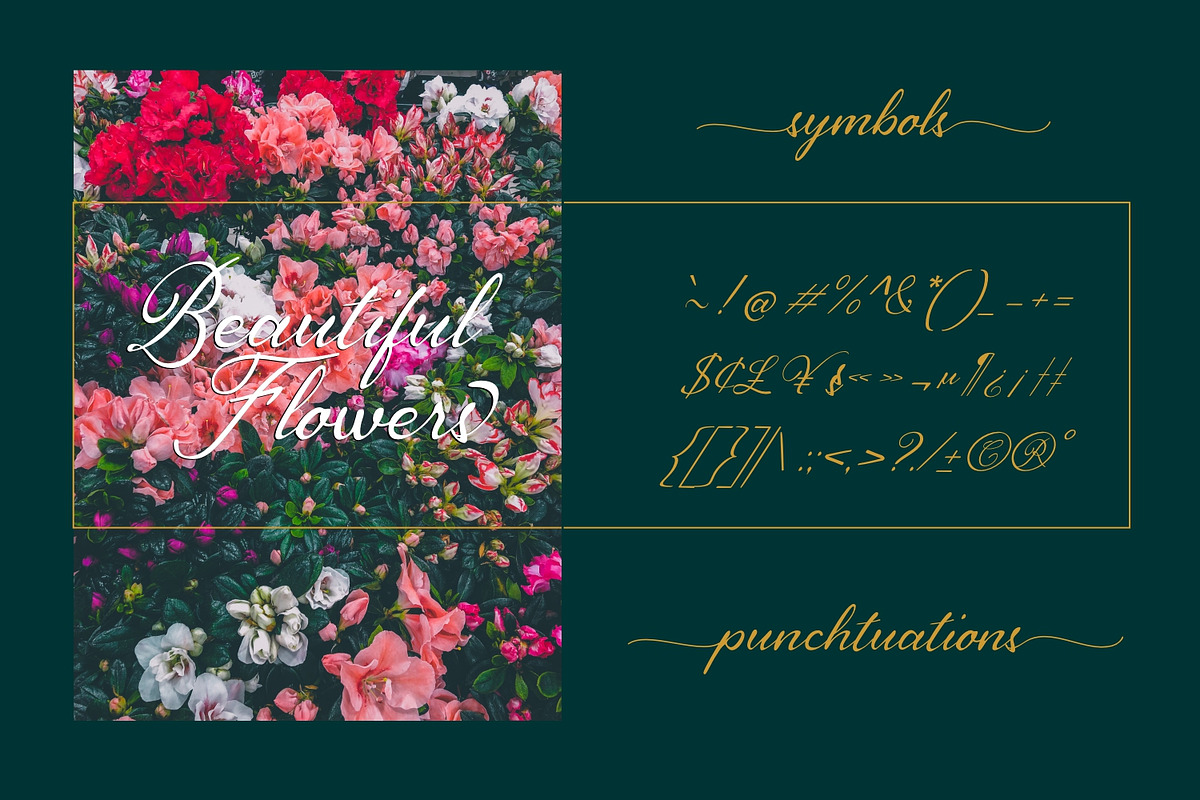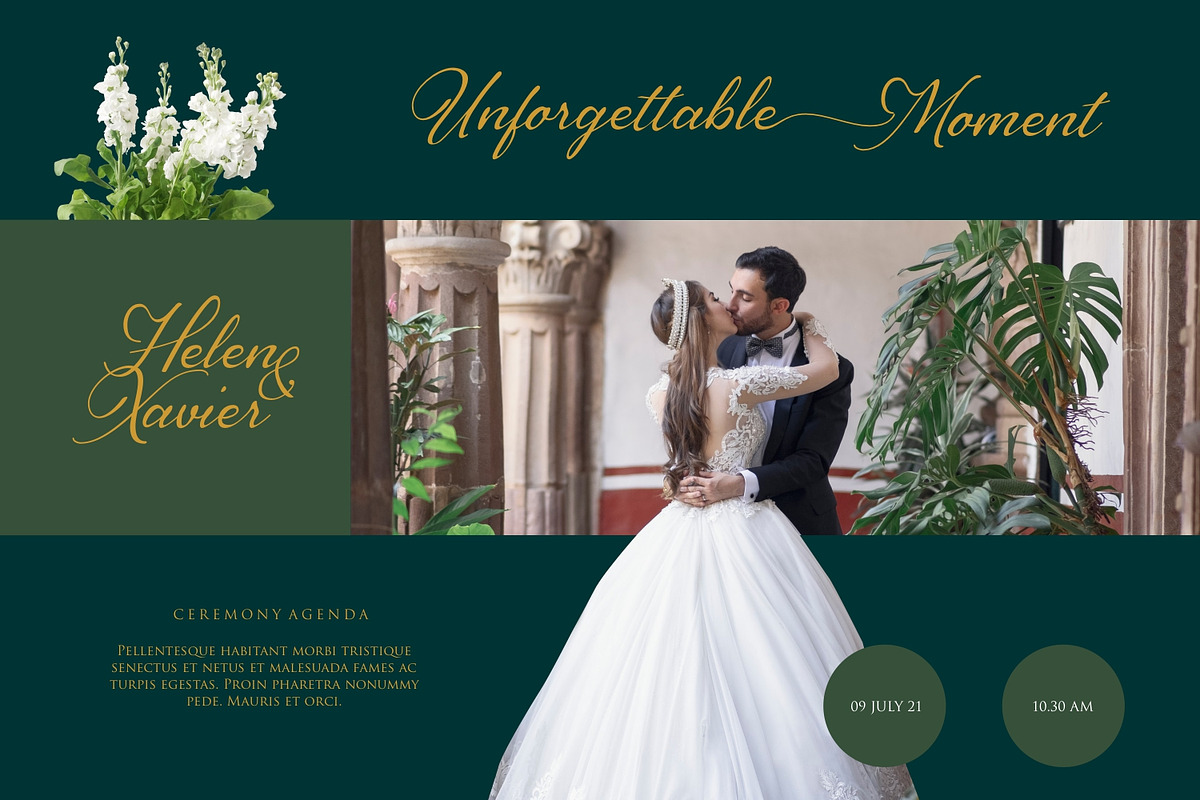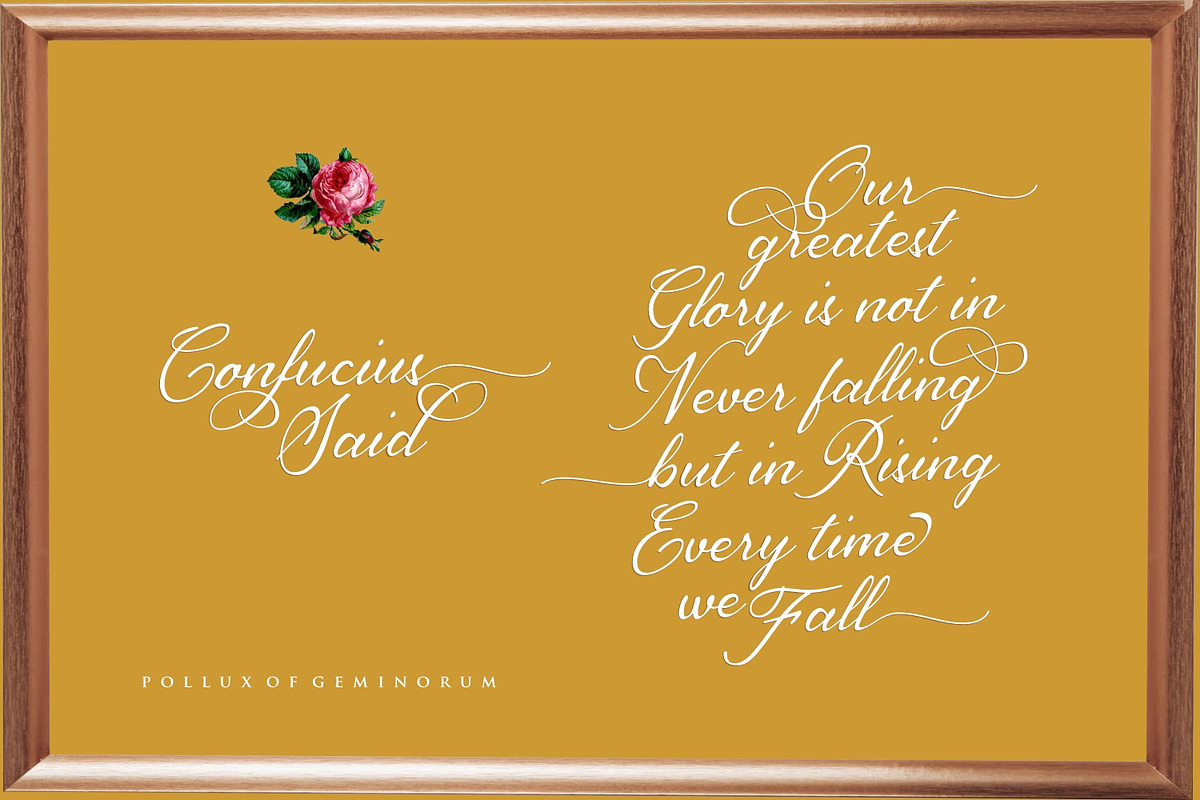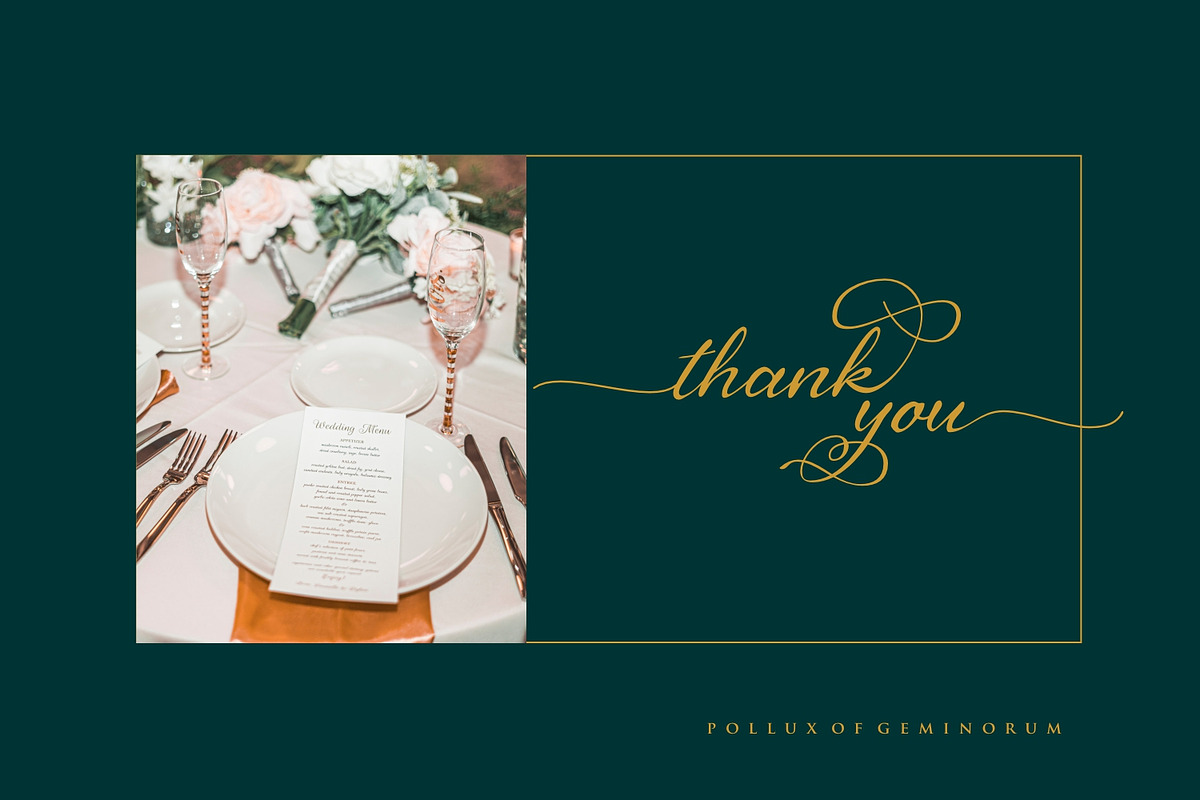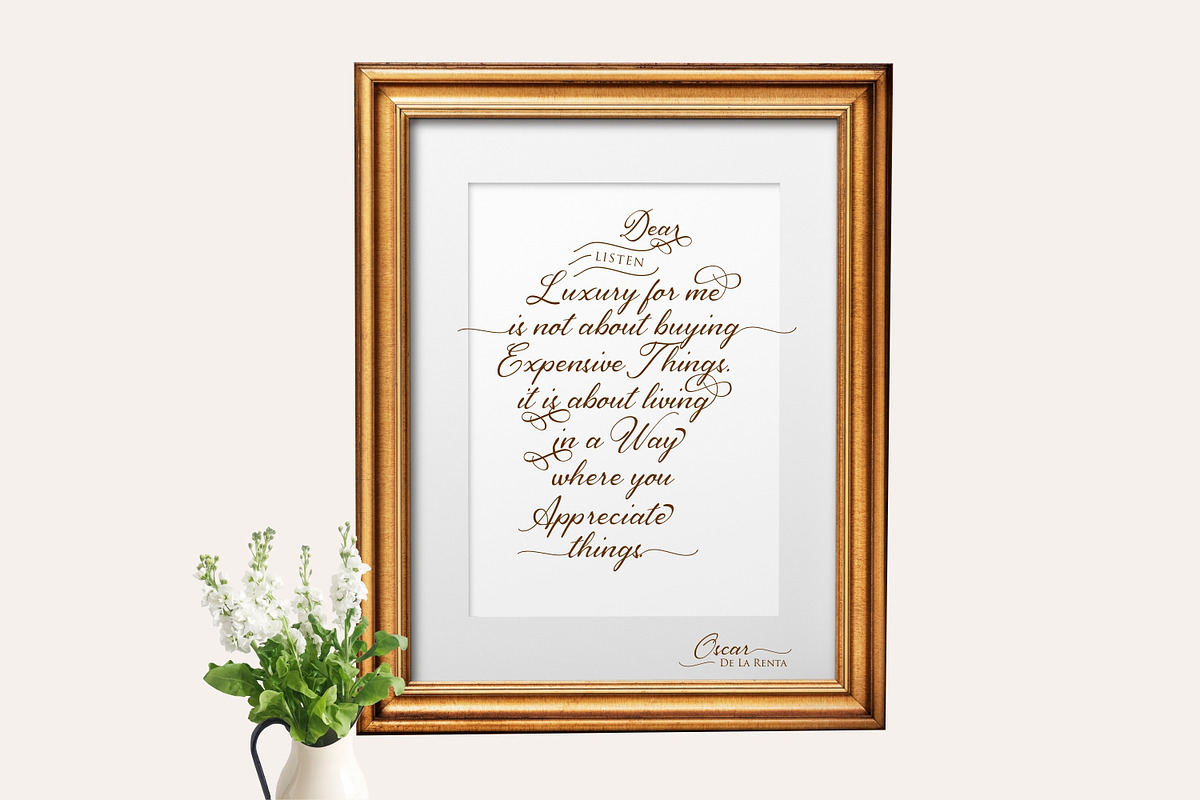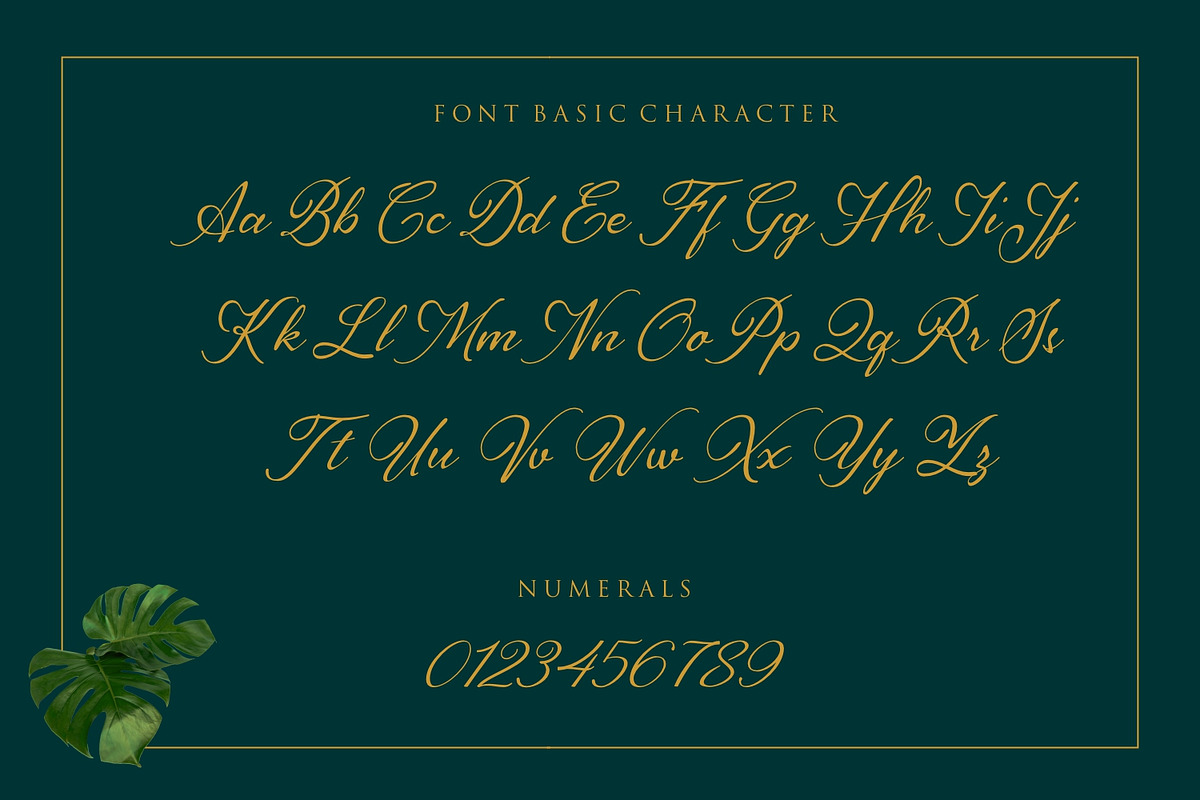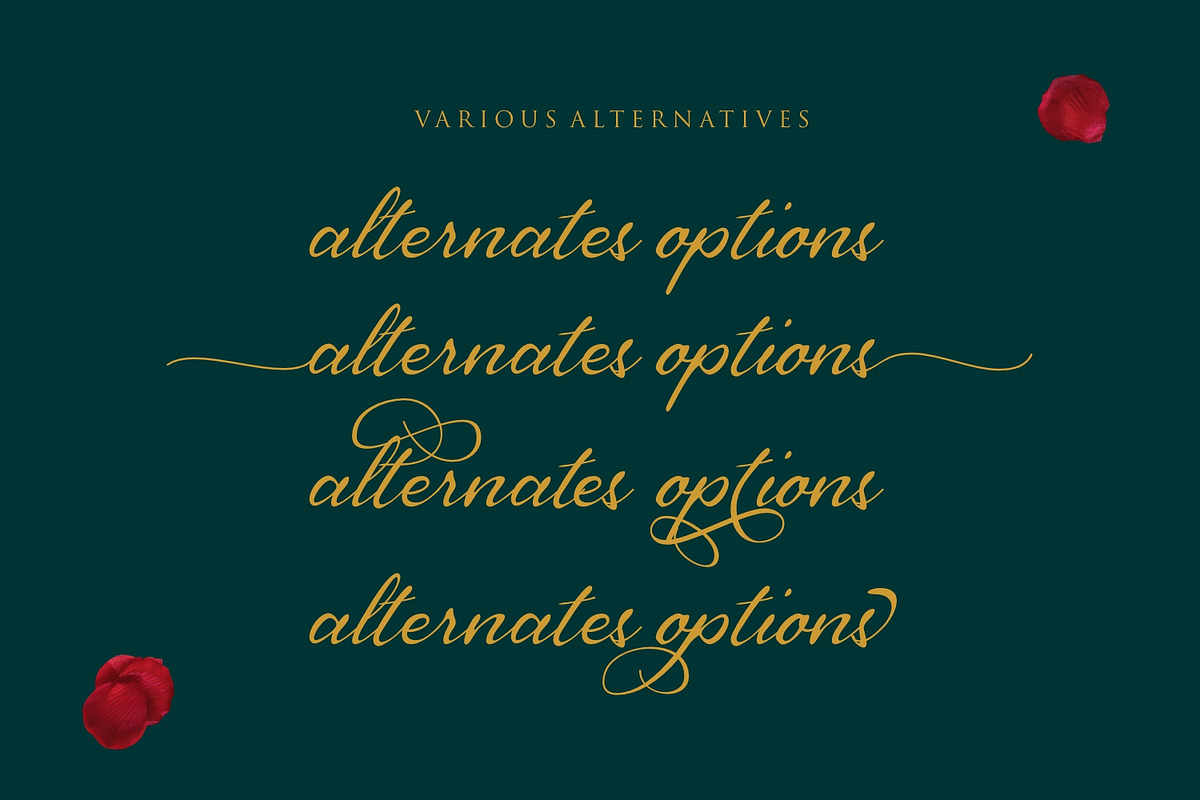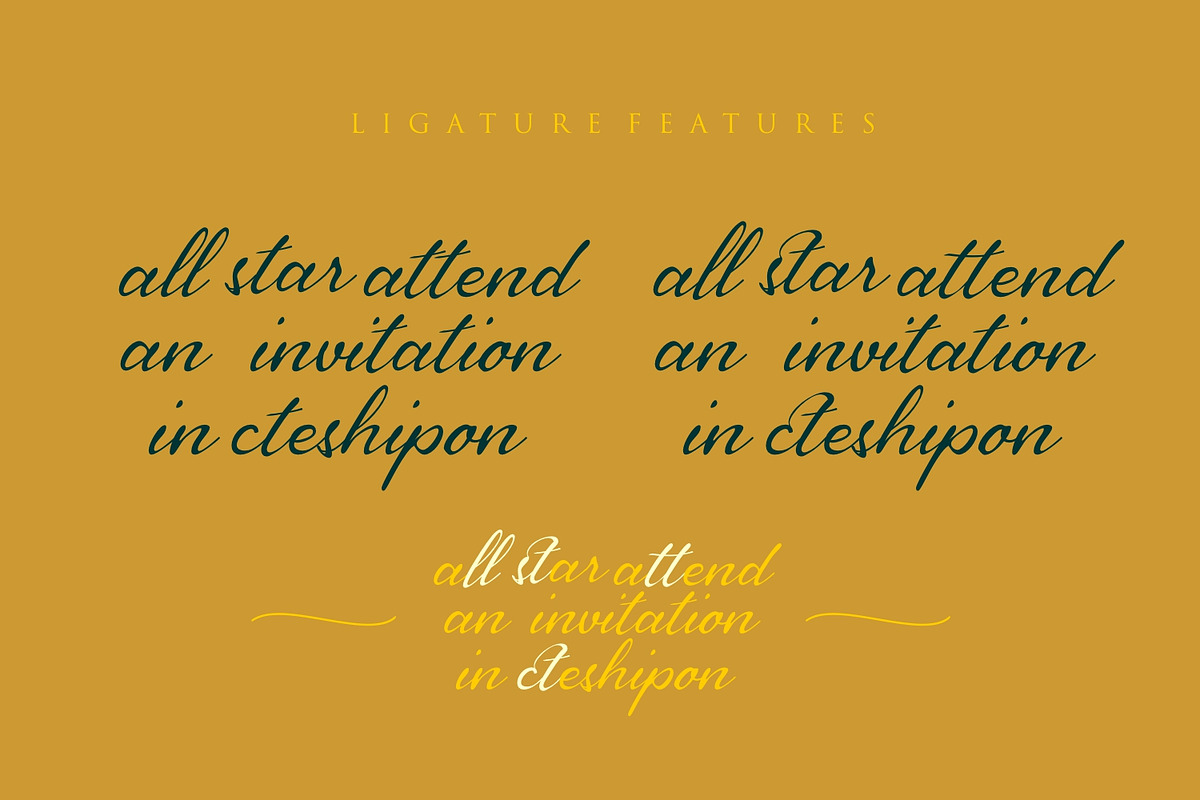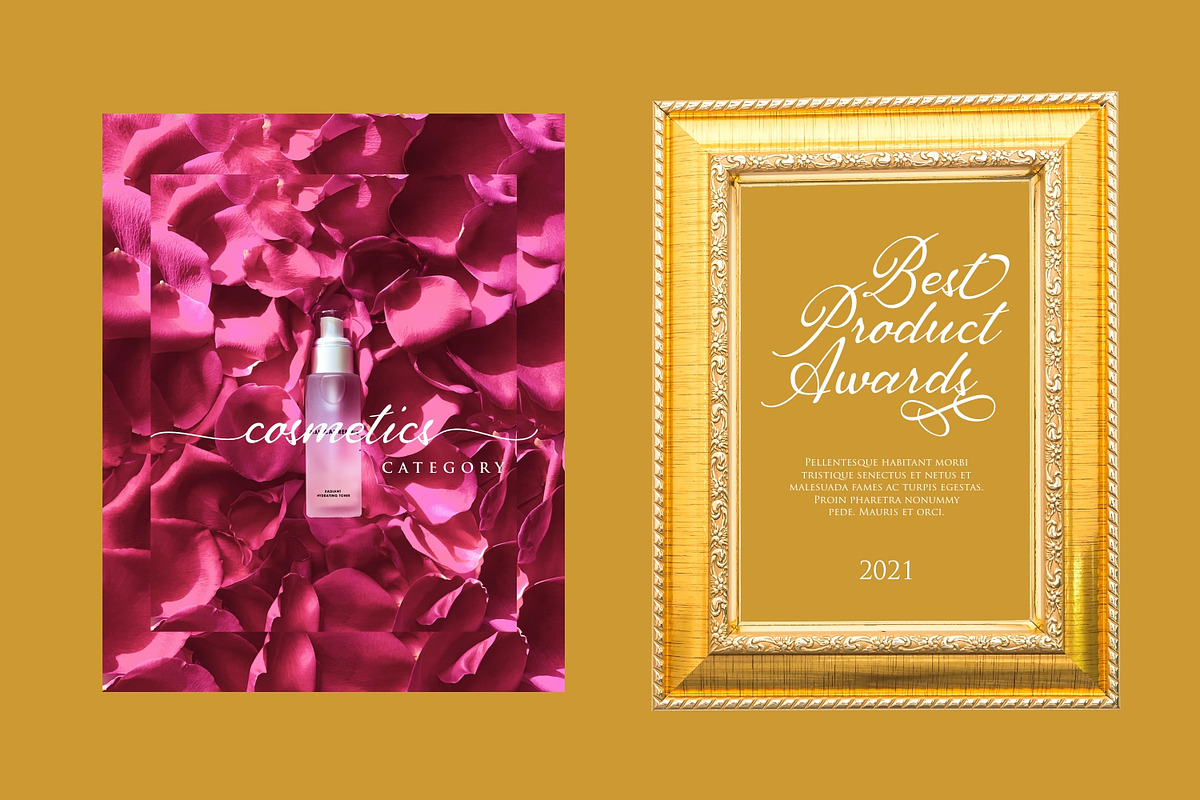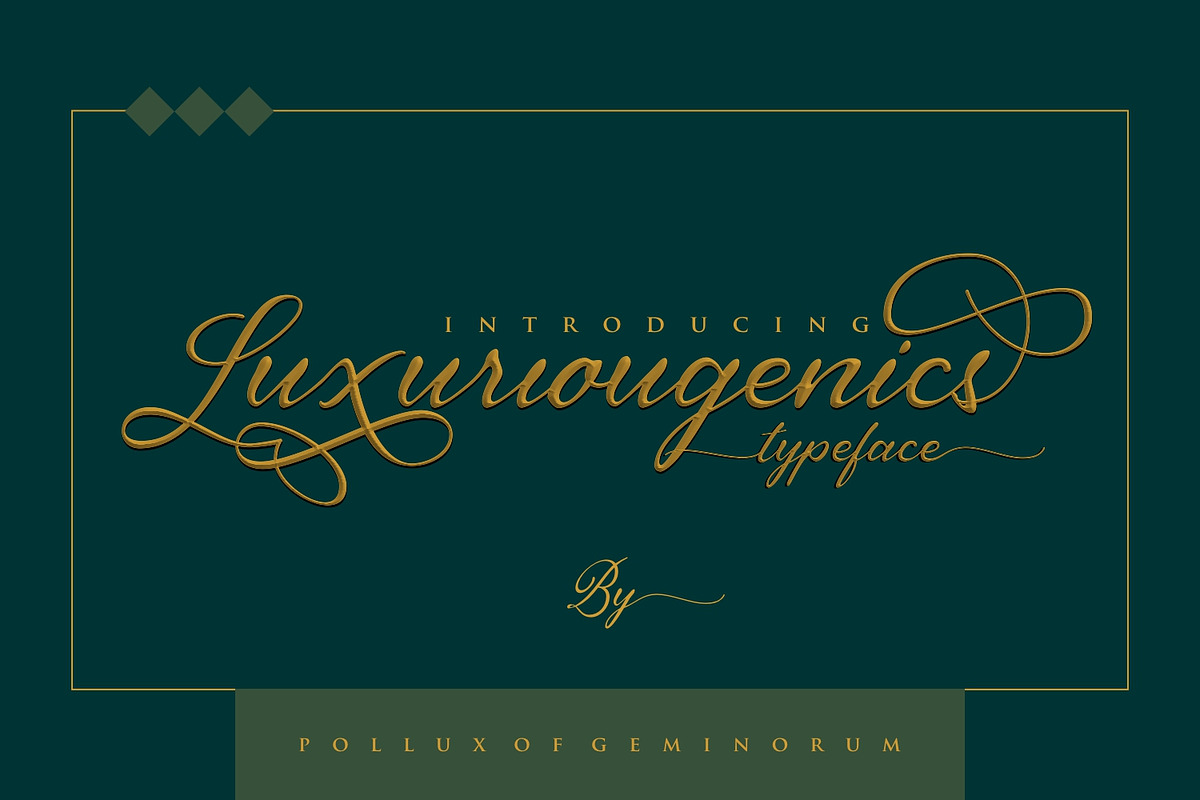
Luxuriougenics
Luxuriougenics - Royal Font feels equally charming and elegant. It looks stunning on wedding invitations, thank you cards, quotes, greeting cards, logos, business cards and every other design which needs a handwritten touch. This font is PUA encoded which means you can access all of the glyphs and swashes with ease! It features a varying baseline, smooth lines, gorgeous glyphs and stunning alternates.
Pollux of Geminorum